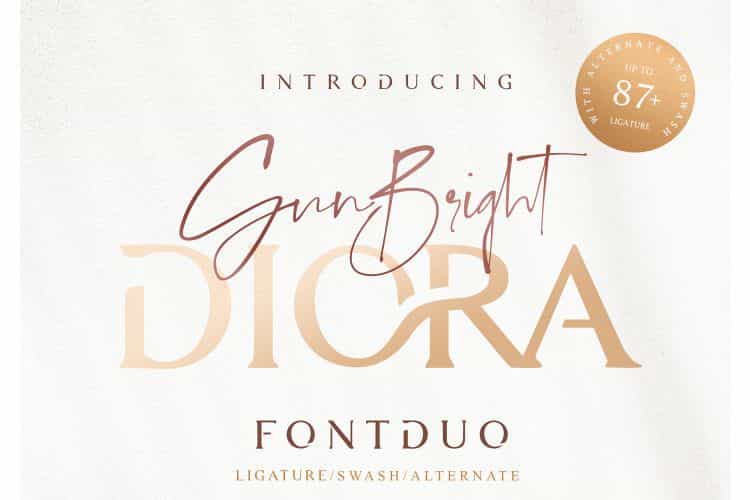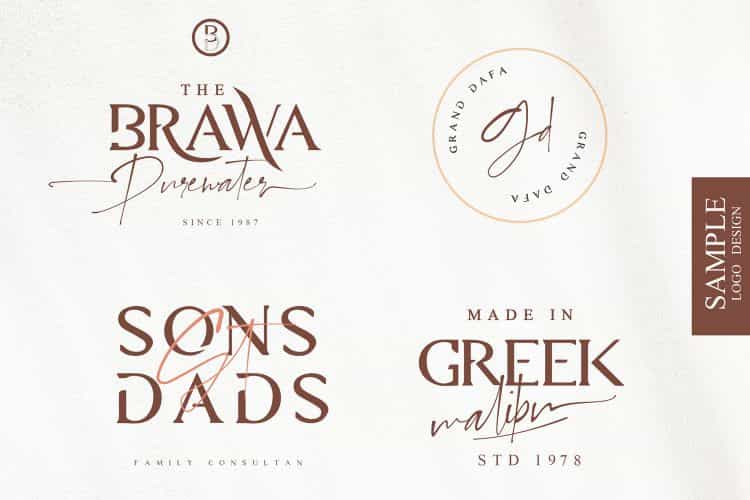
Discover Diora Sunbright Font Duo, part of the Handwritten Serif collection—a versatile and unique font perfect for adding a personal touch to your projects. Download it for free and enjoy crafting designs with style, from invitations to social media posts. This font is available exclusively for personal use, giving you the freedom to create without limits. Unlock your creativity with Diora Sunbright Font Duo today!
Diora Sunbright is an elegant font that includes serif and handwritten script styles. It is a trendy and elegant font pair that will bring style and luxury into your design. Both fonts complement each other and the combination is especially suitable for wedding invitations, cards and any other feminine related branding.